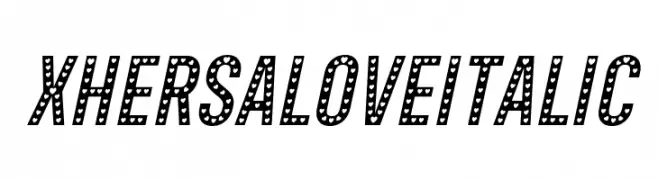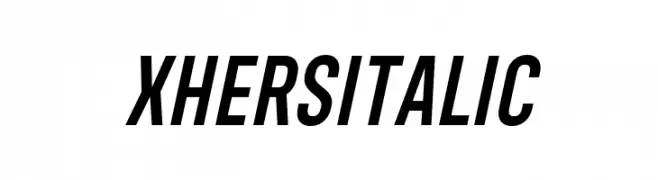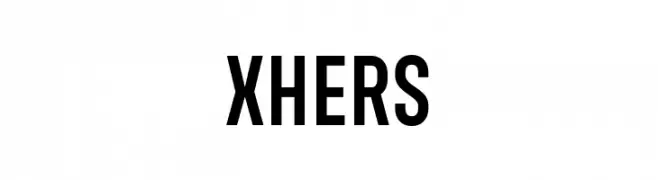
A bold, modern sans-serif font with a condensed and clean design.
A bold, decorative font with heart-shaped embellishments on each character.
A bold, italicized font with decorative dotted patterns.
A bold, italicized, and condensed font with a modern and dynamic style.